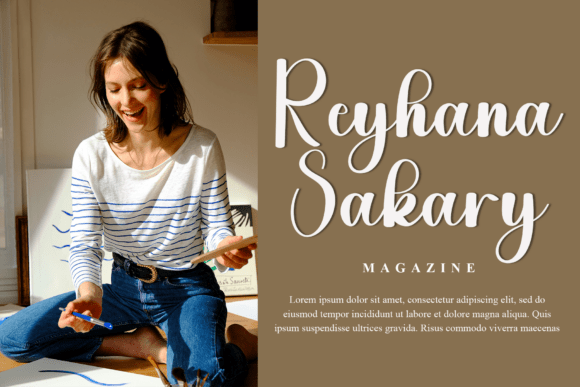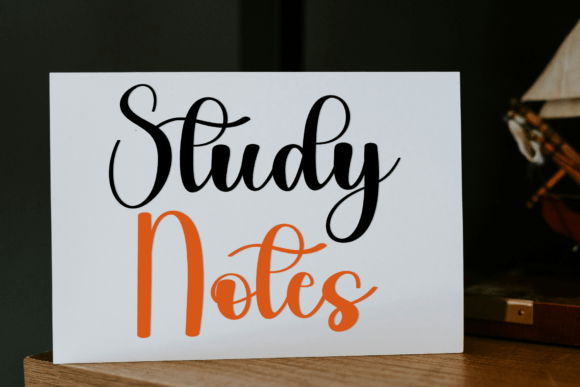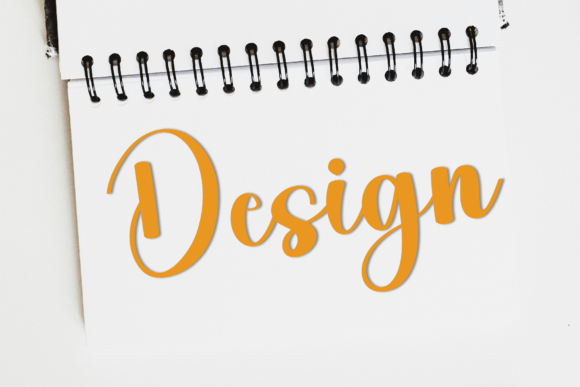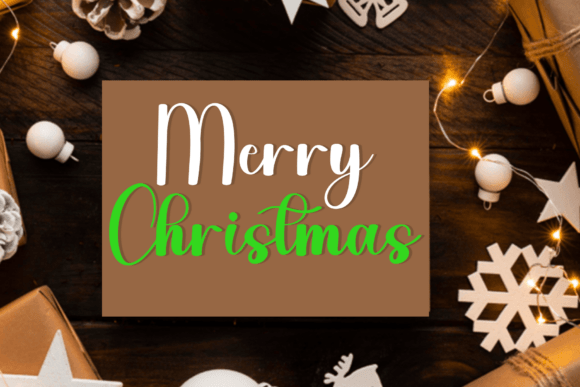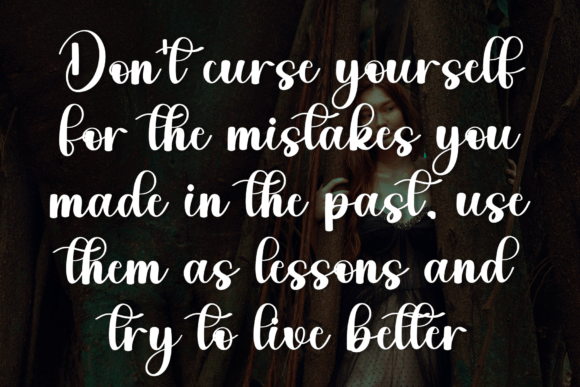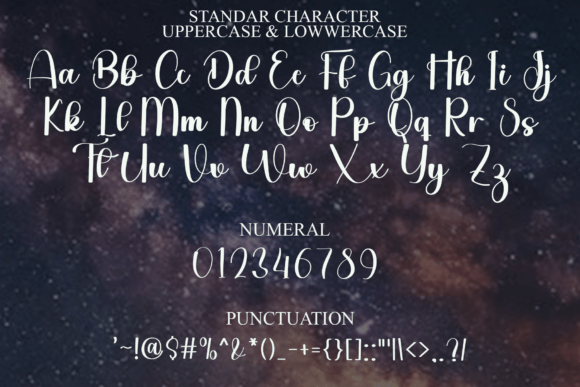
Introduction to Baby Sleep Font
Remember that moment when you stumbled upon the perfect font for your creative project? The one that instantly brought your design to life and made it feel truly special? For many designers, that moment is what drives us to keep pushing the boundaries of our craft. And for those who have been on the hunt for a font that exudes warmth and friendliness, we’re excited to introduce you to the Baby Sleep Font.
This charming, hand-drawn font is a game-changer for personal projects, invitations, and social media graphics. Its round, playful strokes create a relaxed and approachable feel that’s perfect for designers who want to add a touch of whimsy to their designs. And the best part? The Baby Sleep Font is available for free download, complete with transparent background and standard PUA Encoded glyphs, making it a valuable resource for designers of all levels.
Key Features of Baby Sleep Font
- Features a unique and soothing design that promotes a sense of calmness, making it ideal for baby-related products, nursery decor, or parenting-themed creative projects.
- Designed with a high level of detail and precision, resulting in a crisp and clear appearance that is perfect for digital and print projects.
- Comes with a comprehensive character set, including uppercase and lowercase letters, numbers, and punctuation marks, making it a valuable addition to any design library.
Honest Review: Baby Sleep Font
I recently had the chance to work with the Baby Sleep Font, and I must say it’s been a game-changer for my creative projects. The font is available for a free download, which is always a plus when it comes to design resources.
The font itself has a beautiful, high-quality design that’s perfect for any project related to babies or sleep. I particularly love the transparent background option, which makes it easy to overlay on different images.
Here are some things that work well with the Baby Sleep Font:
- High-quality design that looks professional
- Perfect for creative projects related to babies or sleep
- May not be suitable for projects that require a lot of text manipulation
Overall, I’m really impressed with the Baby Sleep Font. It’s a great design resource that’s perfect for anyone looking to add a touch of elegance to their creative projects.
How to Use Baby Sleep Font
The Baby Sleep Font is a high-quality design resource that can be used in a variety of creative projects. With a transparent background, this font is perfect for designers who want to add a touch of cuteness to their work.
To get the most out of the Baby Sleep Font, consider the following tips:
- Use the font in conjunction with other design elements, such as graphics and images, to create a cohesive look.
- Experiment with different font sizes and styles to achieve the desired effect.
- Use the font in a variety of creative projects, such as baby-themed designs, children’s books, and educational materials.
The Baby Sleep Font can be used in a variety of common use cases, including:
- Baby shower invitations and decorations.
- Children’s book illustrations and designs.
- Education materials, such as worksheets and activity sheets.